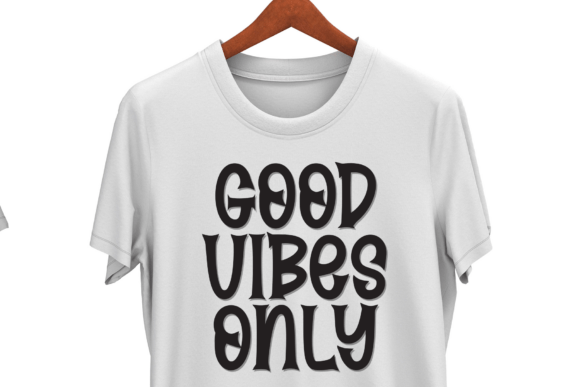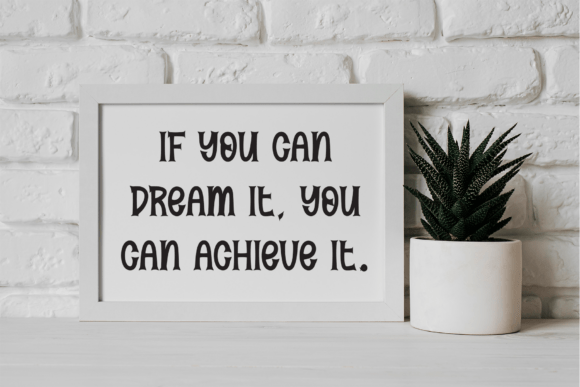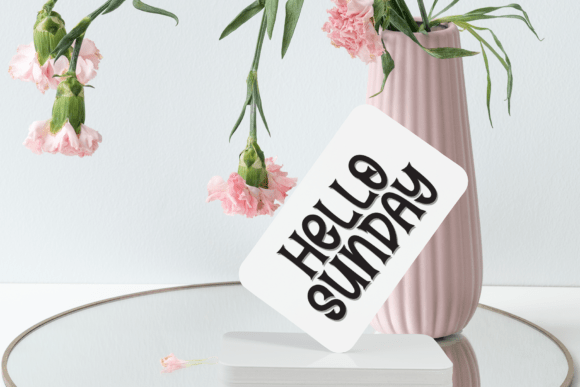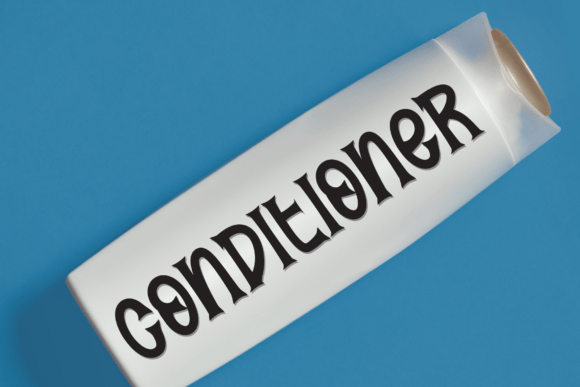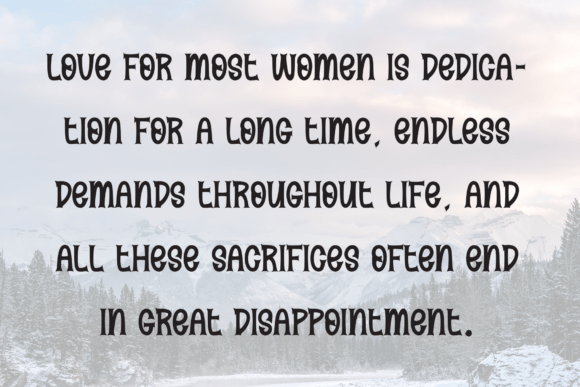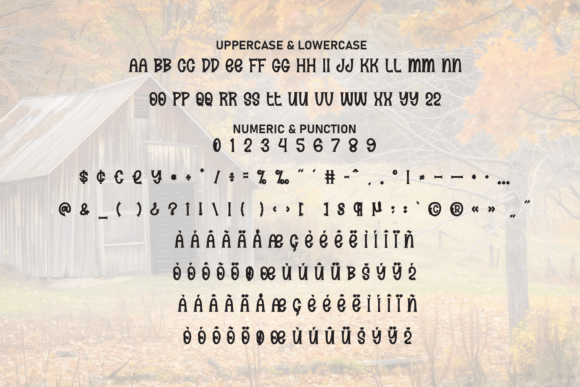
Autumn Farmhouse Font: A Charmingly Playful Handwritten Display Font
Are you looking for a font that exudes warmth, friendliness, and a touch of playfulness? Look no further than the Autumn Farmhouse Font, a delightful handwritten display font that’s perfect for adding a joyful touch to your designs. In this article, we’ll introduce you to this charming font, explore its features, and discuss how it can elevate your creations.
A Font that Radiates Sweetness and Friendliness
The Autumn Farmhouse Font is a beautifully crafted handwritten display font that embodies a lovable and entertaining aura. Its unique character set and playful style make it an ideal choice for designers and crafters who want to add a personal touch to their work. Whether you’re creating wedding invitations, greeting cards, or any other design that needs a burst of cheerfulness, this font is sure to impress.
Wedding invitations and cards are special occasions that require a font that’s both elegant and playful. The Autumn Farmhouse Font fits the bill perfectly, adding a touch of whimsy and romance to your designs. Its charmingly playful style will make your wedding invitations and cards stand out from the crowd, setting the tone for a joyful and celebratory occasion.
Enhance Your Creation with Autumn Farmhouse Font
With the Autumn Farmhouse Font, you can enhance your creations and make an endearing impact on your audience. This delightful font is perfect for designers and crafters who want to add a personal touch to their work. Whether you’re creating digital or print designs, this font will help you connect with your audience on a more personal level.
Key Features of Autumn Farmhouse Font
- Charmingly playful handwritten style: The Autumn Farmhouse Font features a unique and playful handwritten style that’s perfect for adding a touch of personality to your designs.
- Sweet and friendly aura: This font exudes a warm and friendly aura that’s ideal for creating joyful and celebratory designs.
- Perfect for wedding invitations and cards: The Autumn Farmhouse Font is an excellent choice for wedding invitations, greeting cards, and any other design that needs a touch of elegance and playfulness.
- Easy to read and use: This font is easy to read and use, making it perfect for designers and crafters of all skill levels.
How to Use Autumn Farmhouse Font in Your Designs
- Pair it with other fonts: The Autumn Farmhouse Font pairs well with other fonts, such as serif or script fonts. Experiment with different font combinations to create a unique look.
- Use it for headings and titles: This font is perfect for headings and titles, adding a touch of personality and whimsy to your designs.
- Add embellishments and graphics: Consider adding embellishments and graphics to your designs to enhance the Autumn Farmhouse Font and create a more playful look.
In conclusion, the Autumn Farmhouse Font is a charmingly playful handwritten display font that’s perfect for adding a joyful touch to your designs. With its lovable and entertaining aura, it’s an ideal choice for wedding invitations, cards, and any other design that needs a burst of cheerfulness. Download the Autumn Farmhouse Font today and enhance your creations with its delightful style.